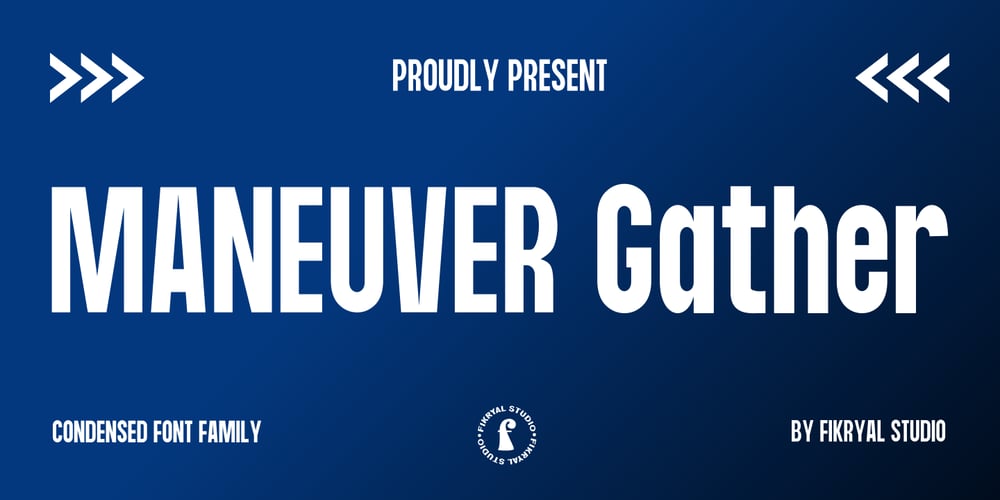
M Gather
M Gather font
M Gather Font Family was designed by Muhammad Fikry and published by Fikryal. M Gather contains 6 styles and family package options. Maneuver Gather is a sans-serif condensed font designed to bring a modern and elegant touch to your design projects.With its slim and compact proportions, this font is ideal for designs that require space efficiency without compromising readability.Available in six diverse styles—Light, Light Italic, Regular, Italic, Bold, and Bold Italic—this font family offers maximum versatility, allowing you to create strong typographic hierarchies within a single font family.Perfect for branding, editorial, web, and packaging design, Maneuver Gather ensures that your message is conveyed with clarity and style.If you have any questions please don’t hesitate to contact mefollow my Instagram: fkryallThank you